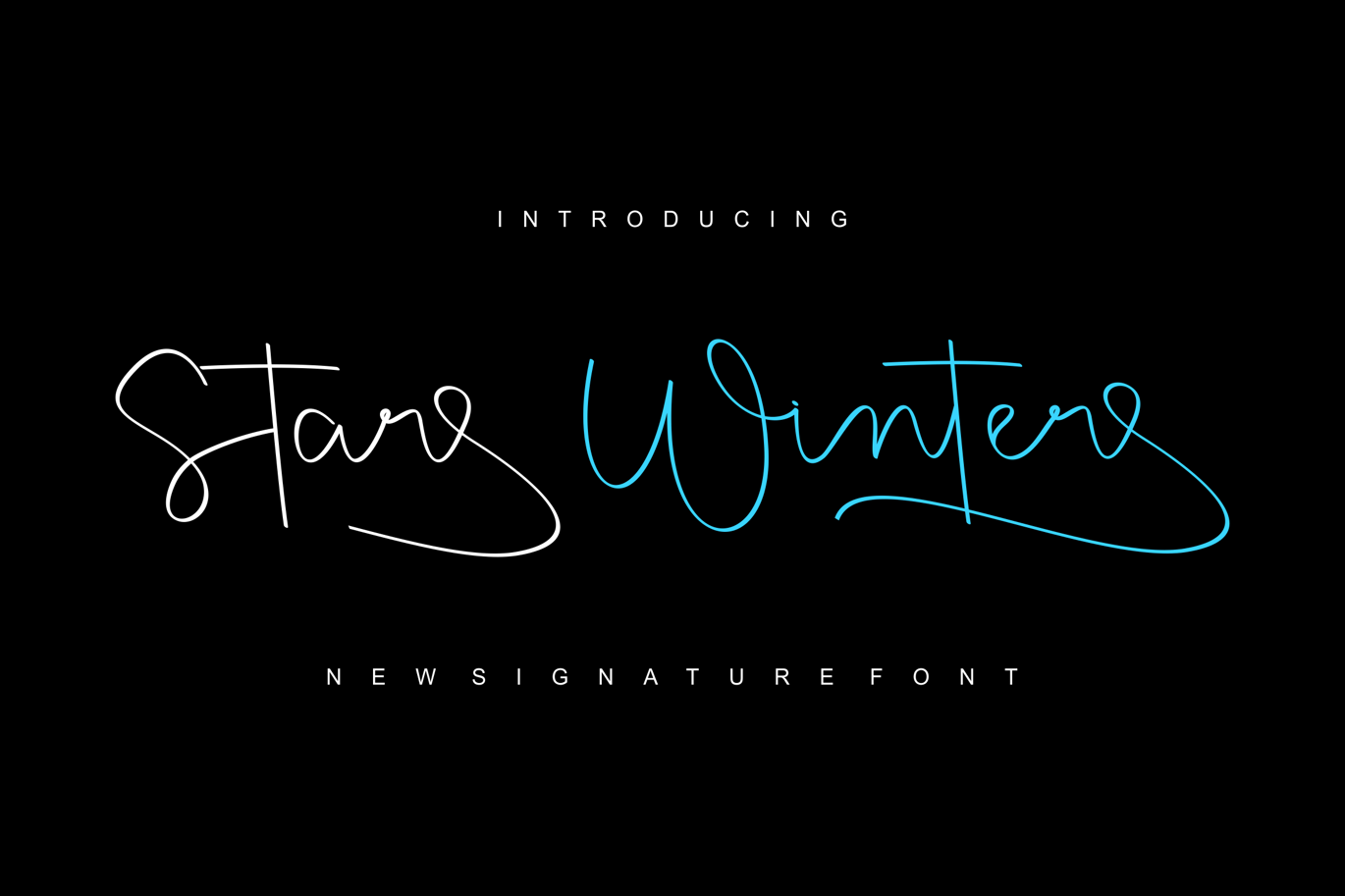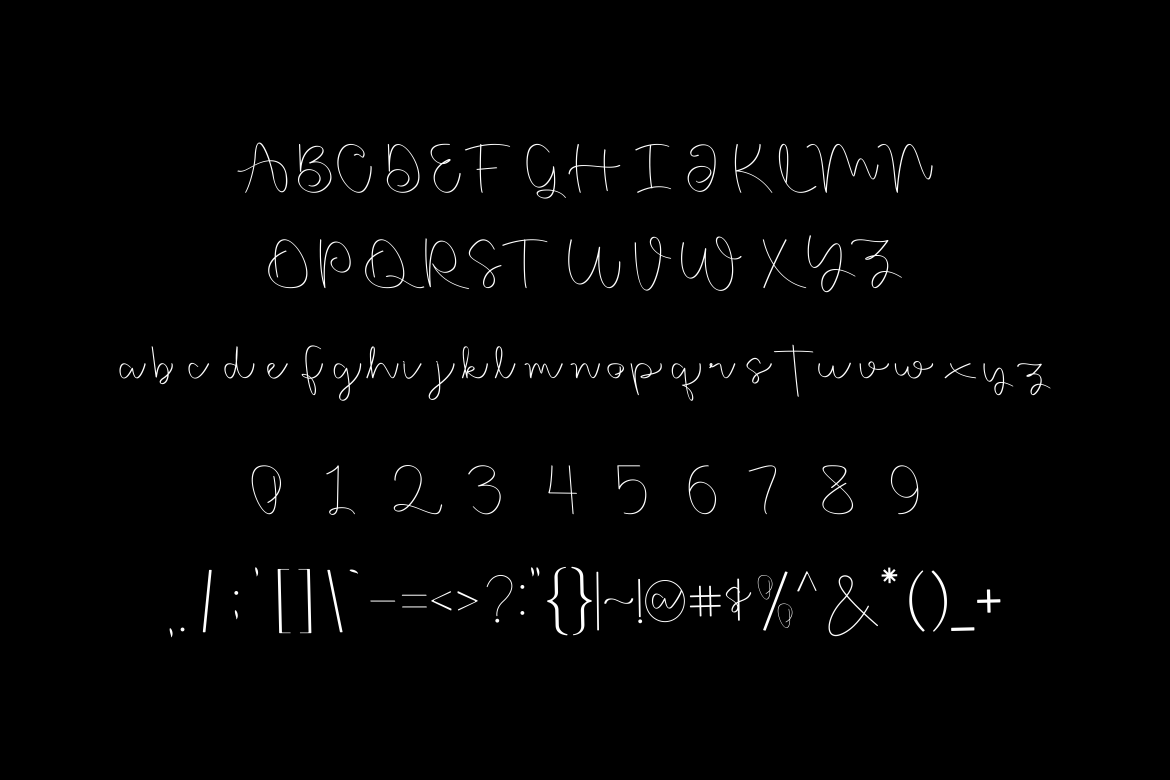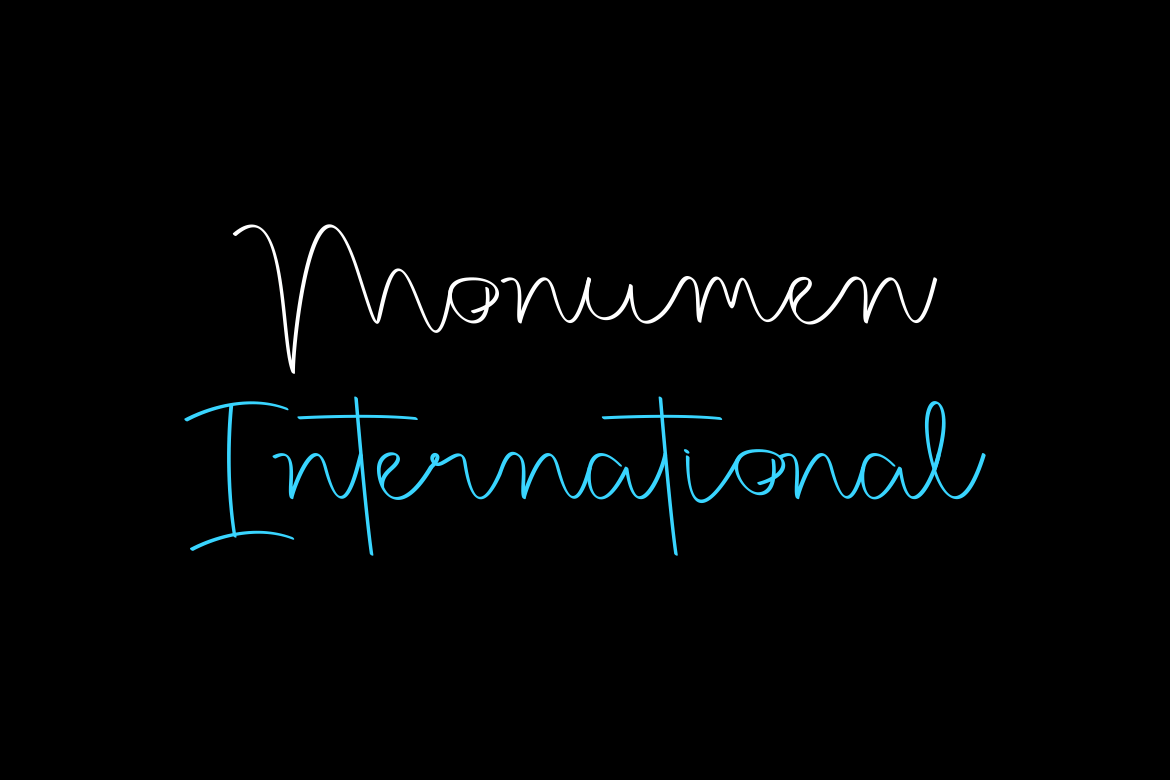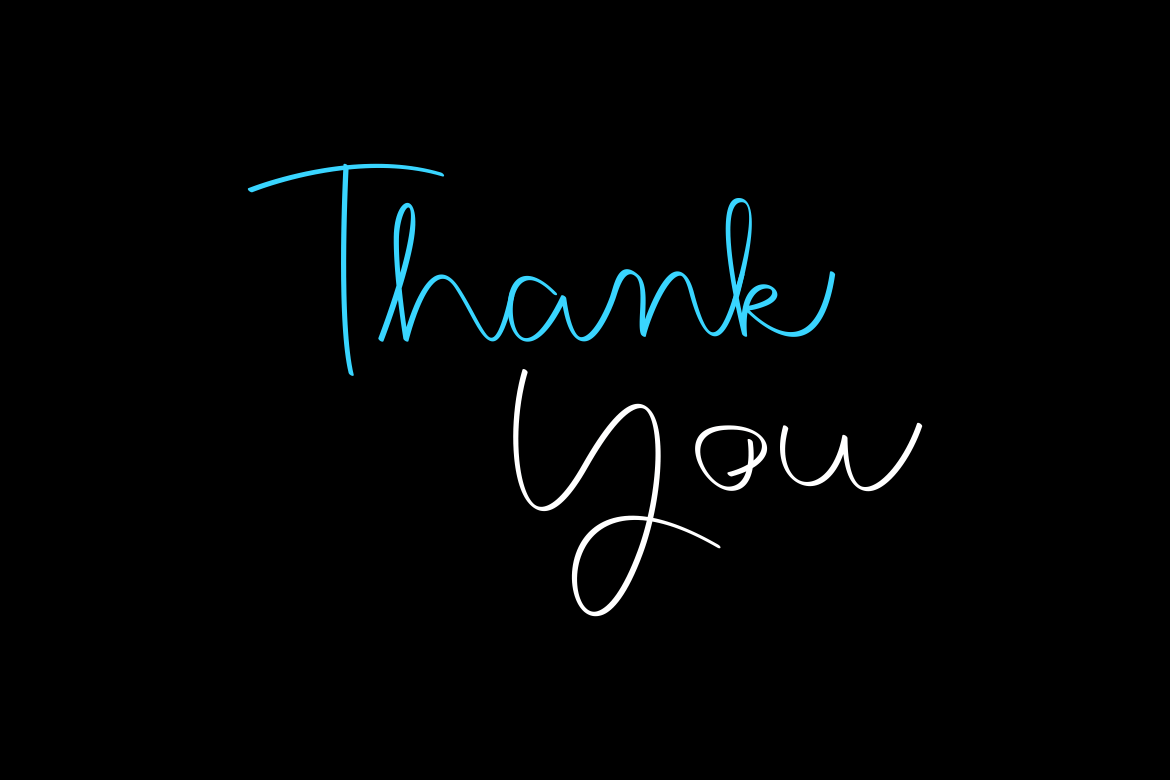
Star Winter Font
Introducing our new product Star Winter Font – Modern Font
Star Winter Font – Modern Font is a bold and authentic display font. The font is suitable for any branding project like logo, t-shirt printing, esport, and many more. outstanding in a wide range of contexts.